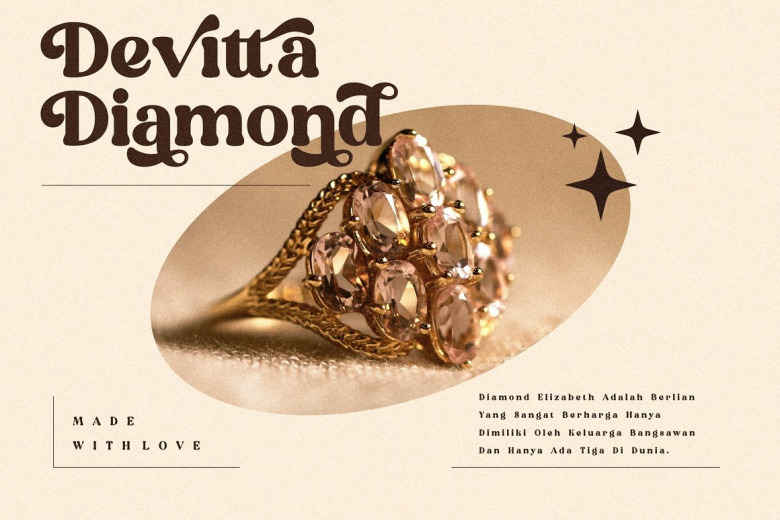
Devitta Font
Devitta is a modern serif typeface that gives a romantic feel to every curve. It’s designed and shared by Storytype Studio. Devitta is perfect for an elegant & luxury logo, book or movie title design, fashion brand, magazine, clothes, lettering, quotes, and so much more.